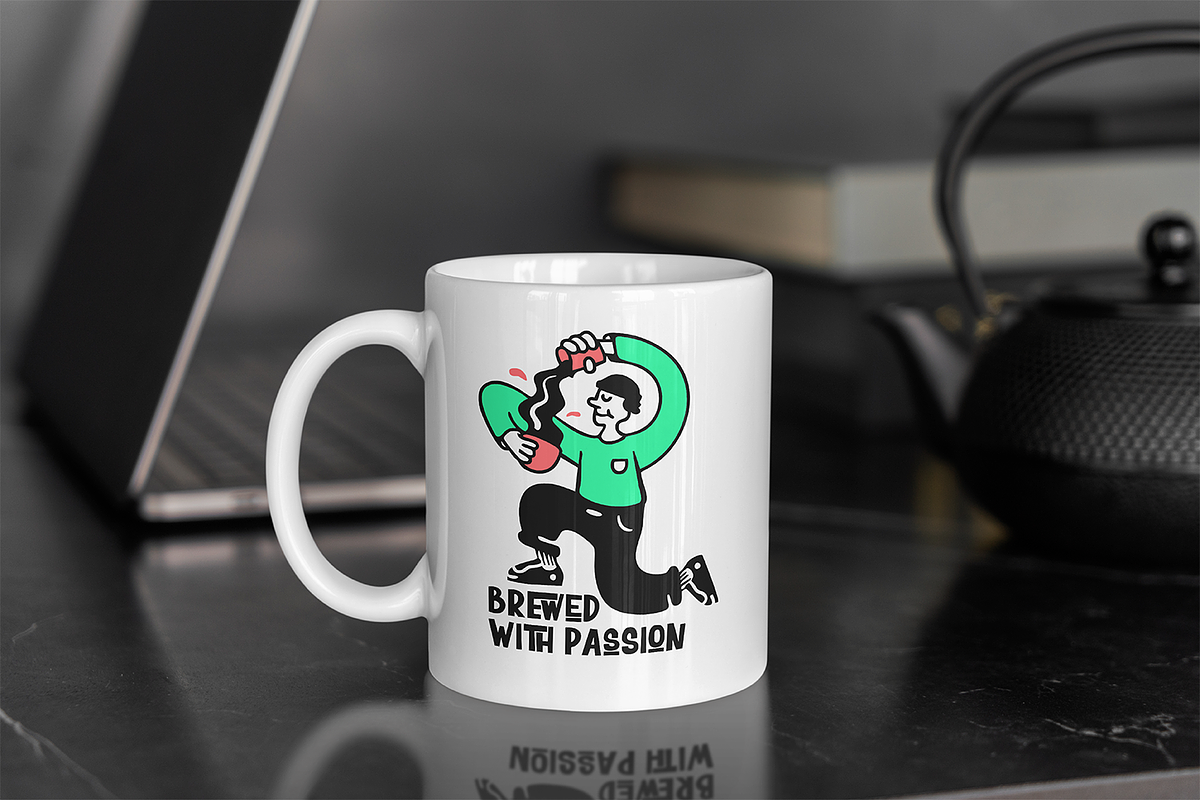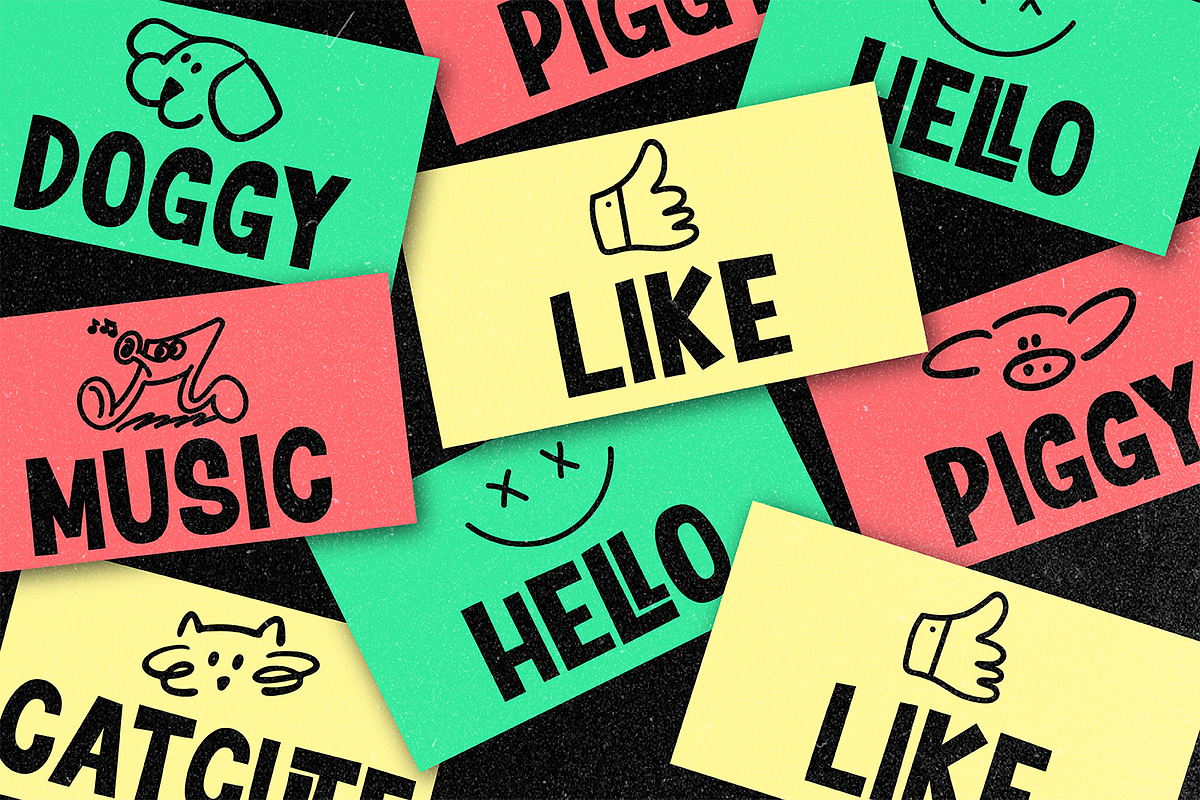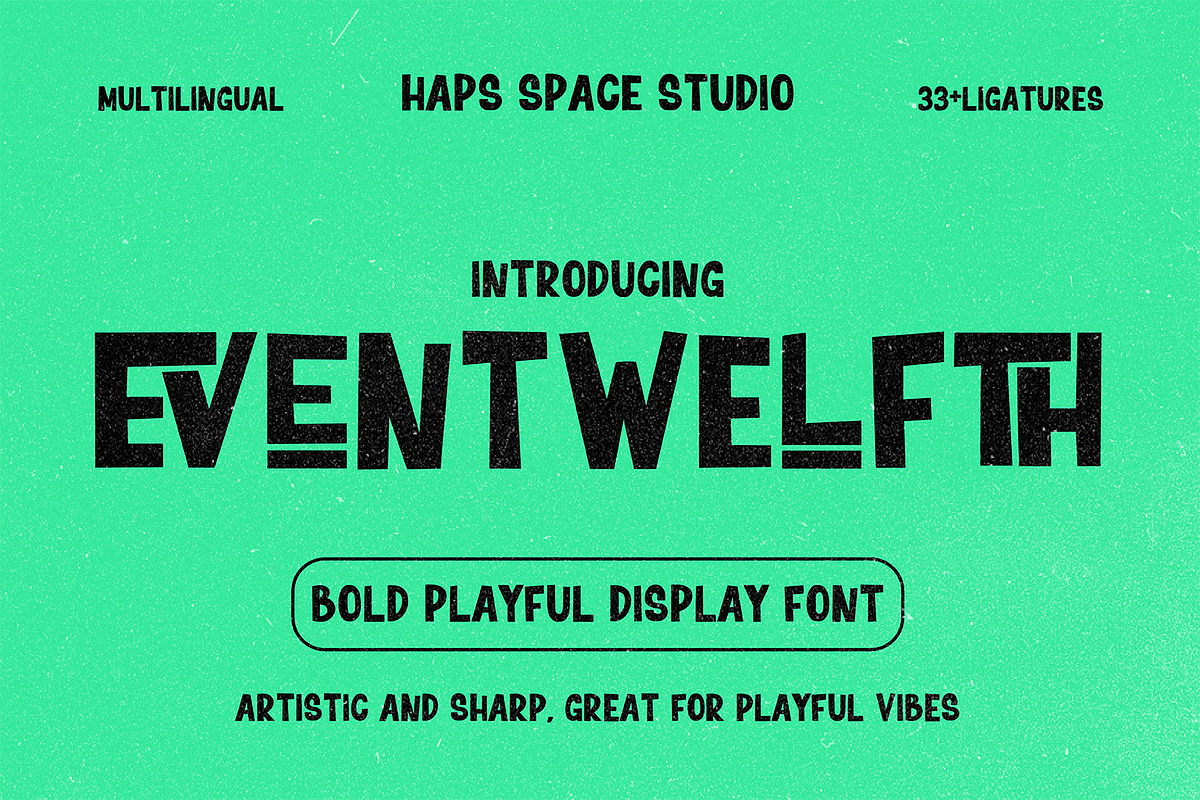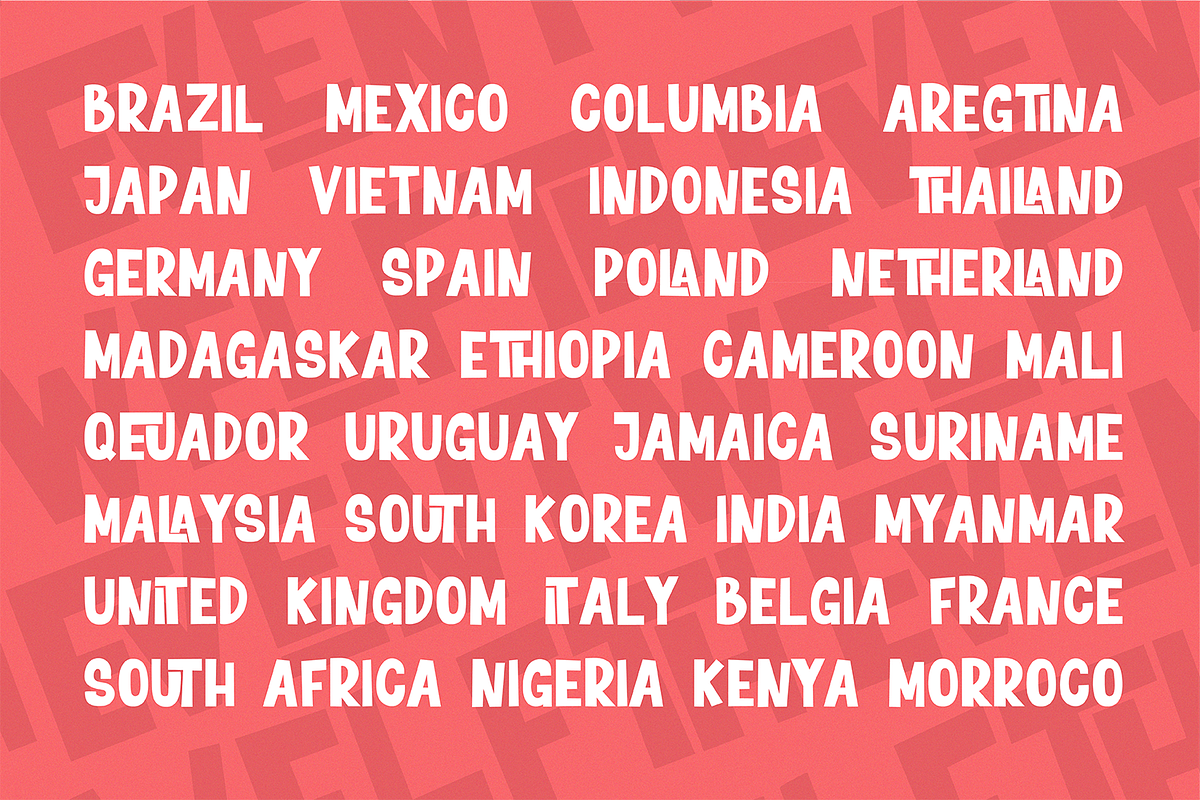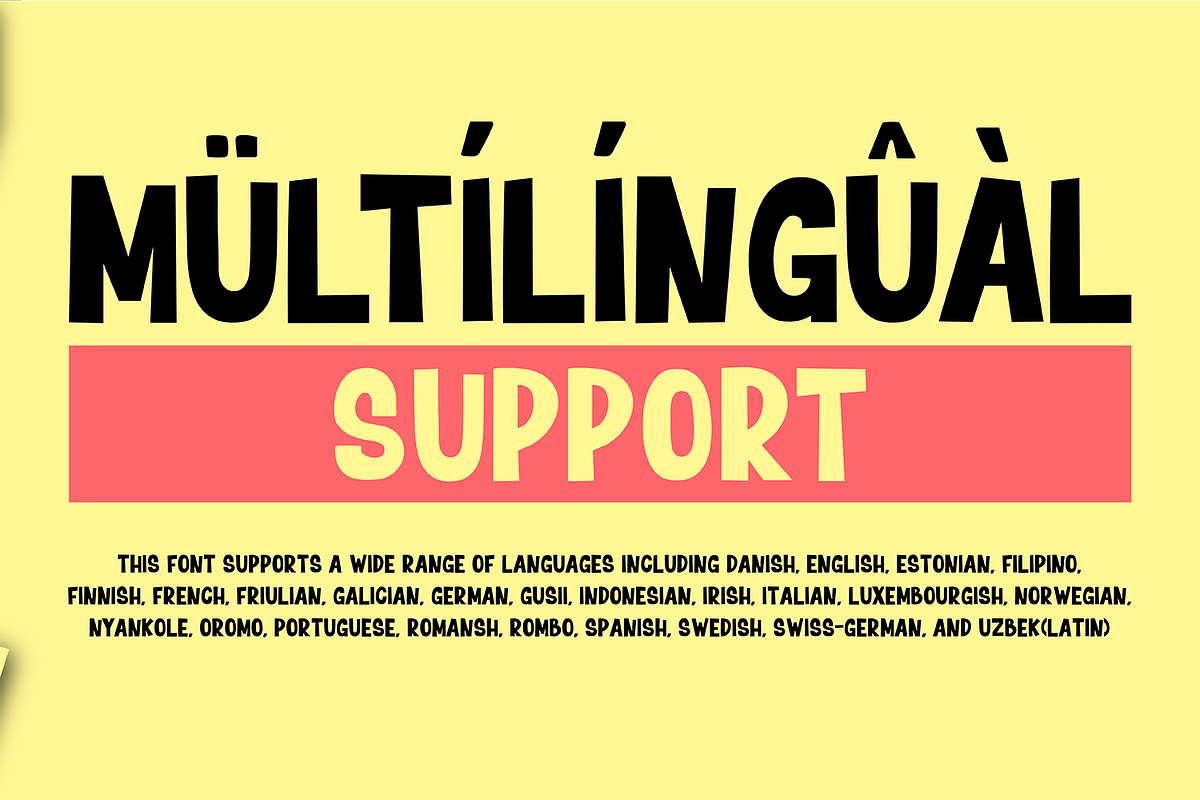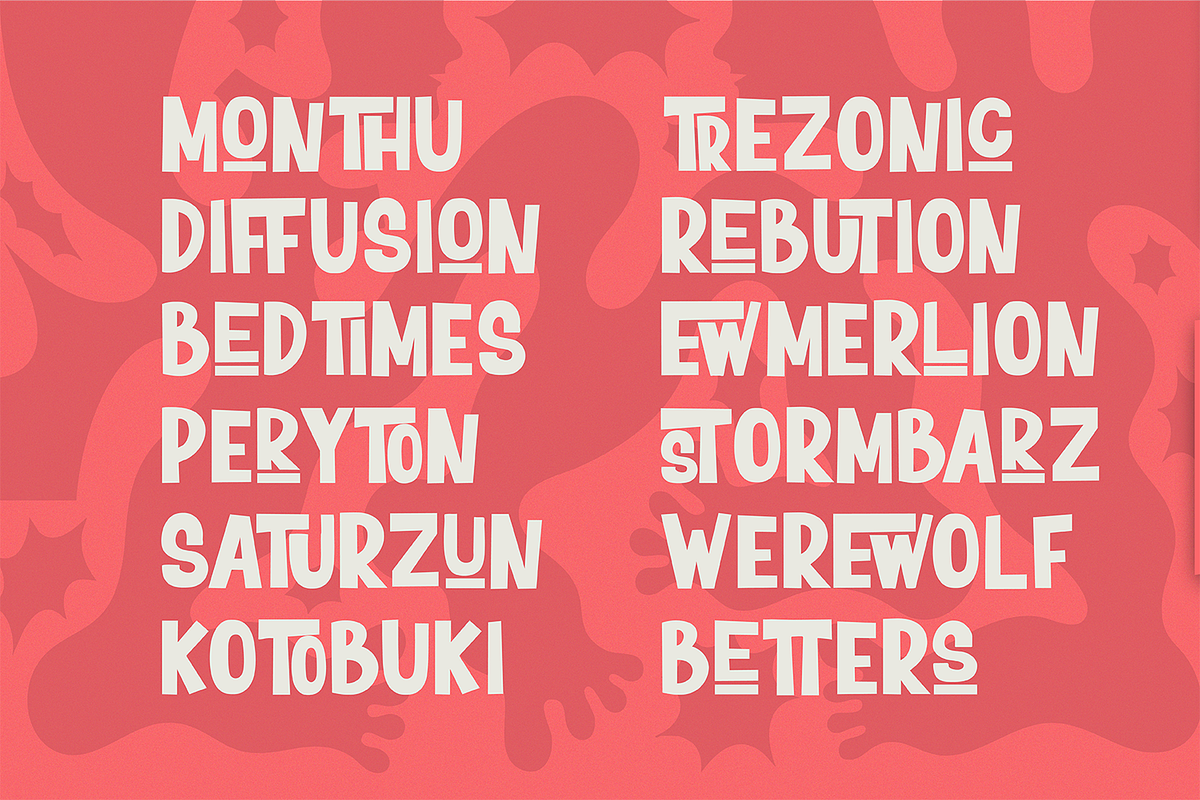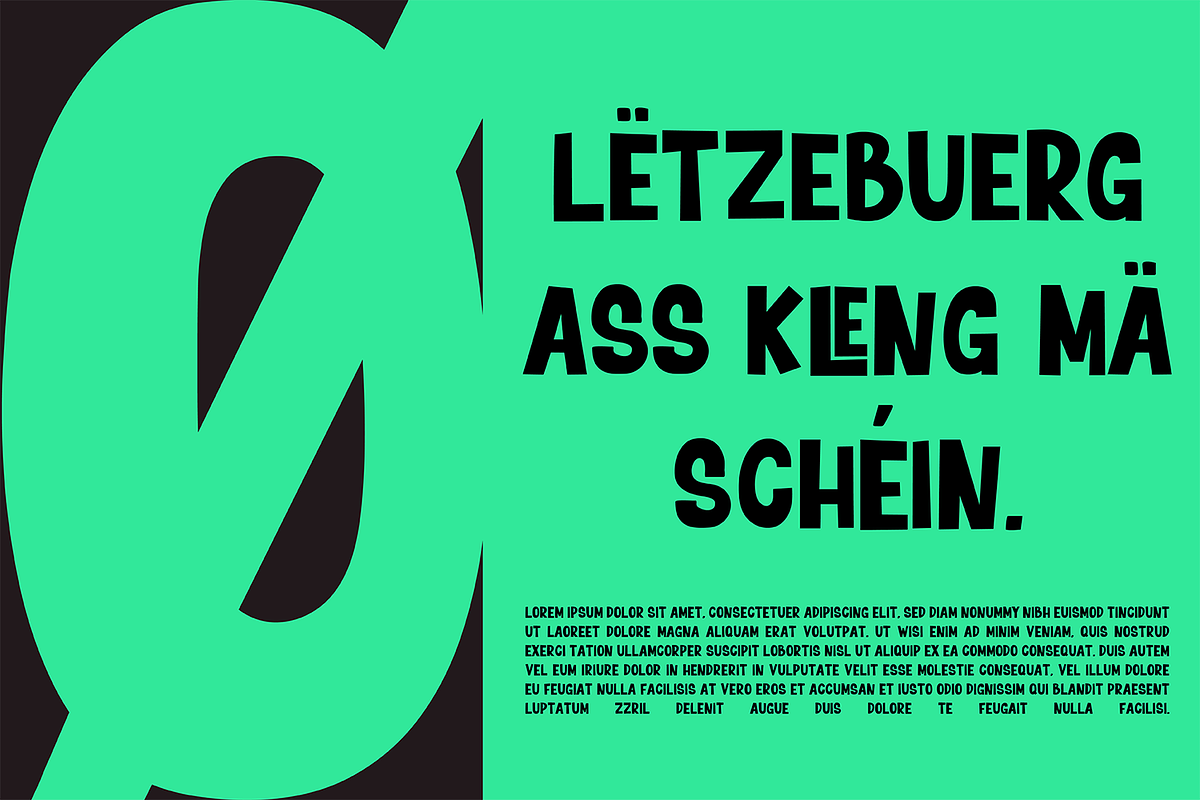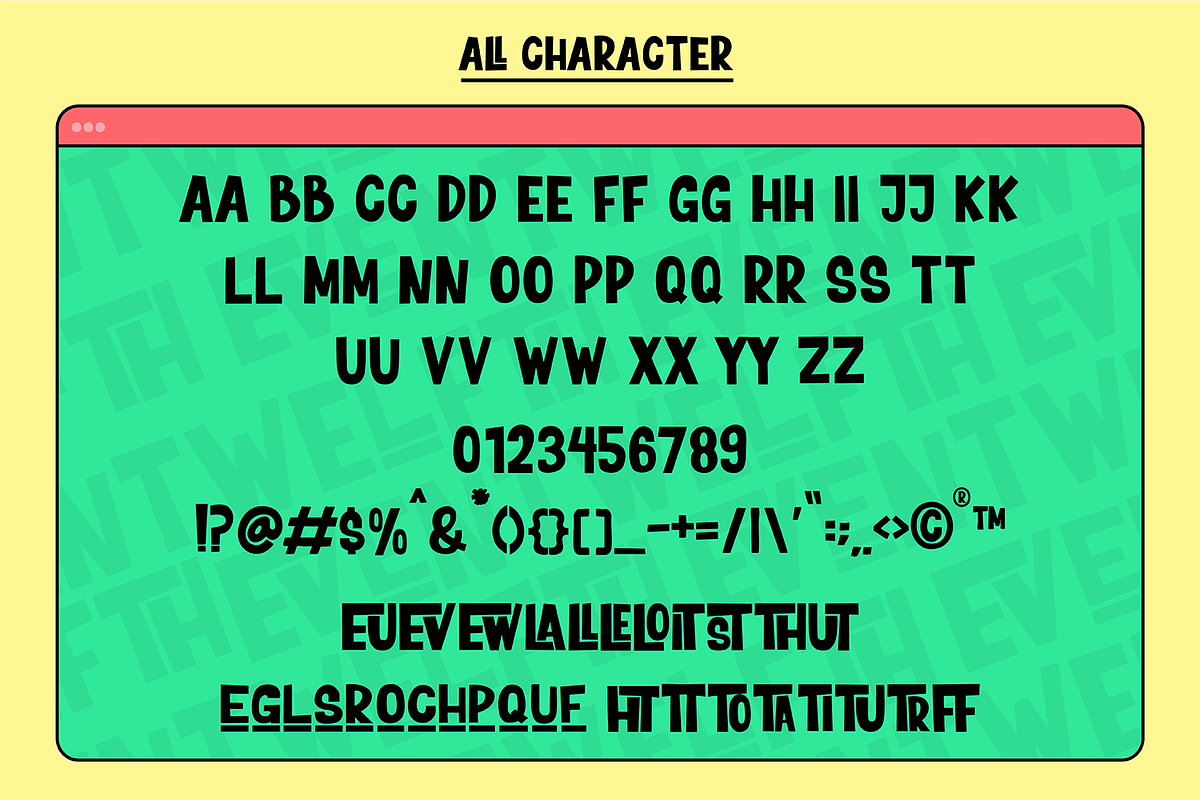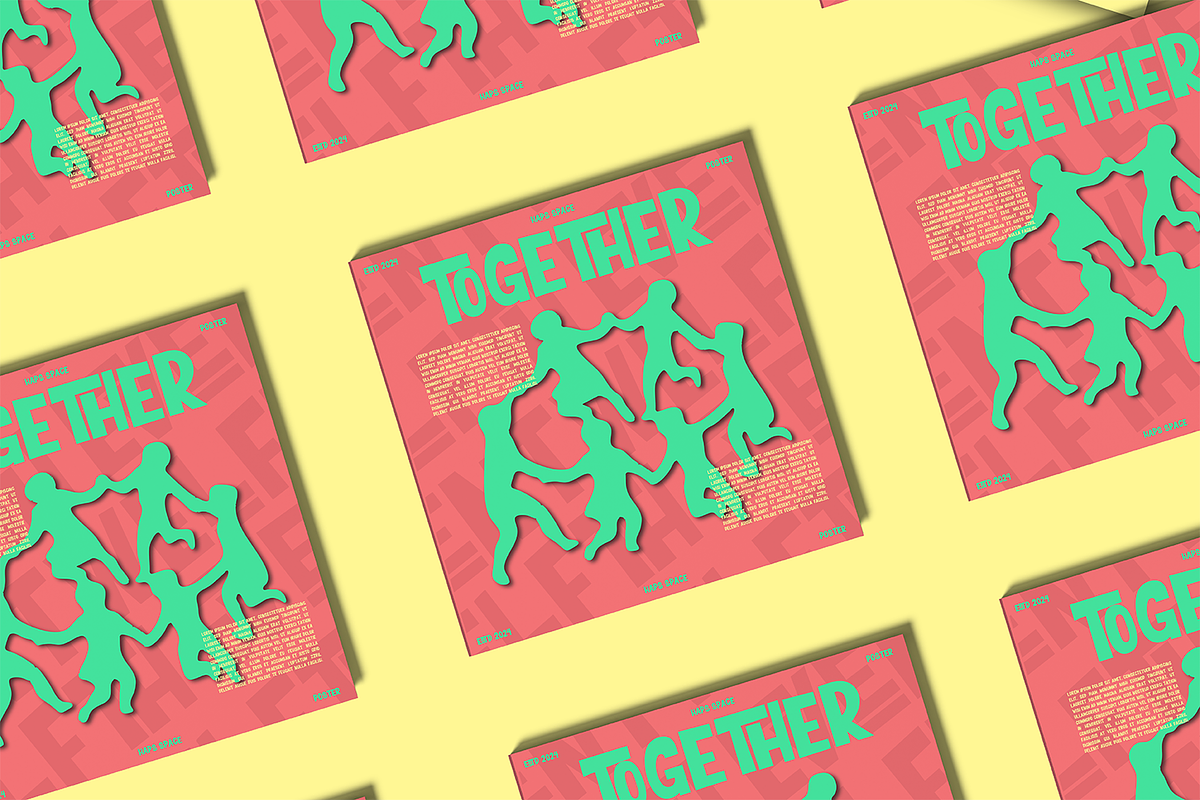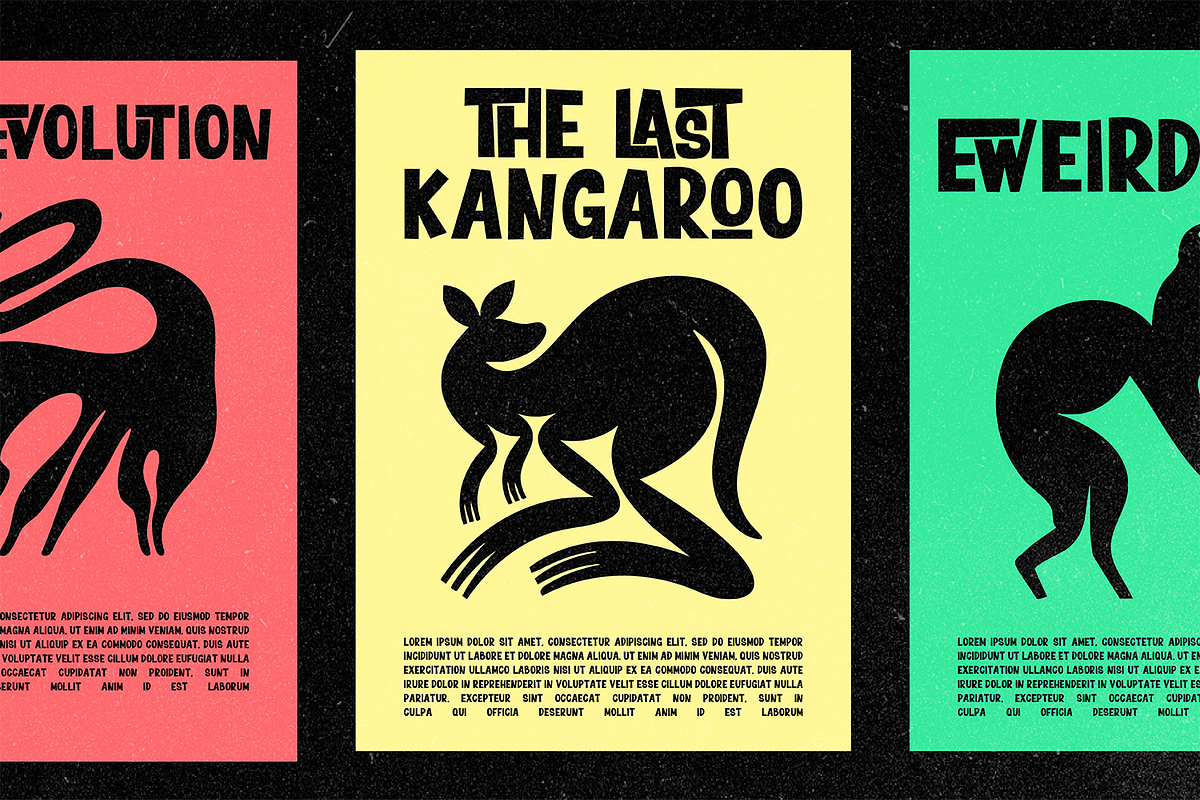
Eventwelfth Bold Playful
Eventwelfth is a bold, artistic, and quirky display font packed with 33+ creative ligatures and multilingual support. With its sharp angles and unexpected curves, this font is perfect for making your design pop with energy and playful vibes.
Whether you’re designing posters, event flyers, children’s books, or branding for youthful, modern products — Eventwelfth brings personality and impact to every letter.
- Unique Letterforms